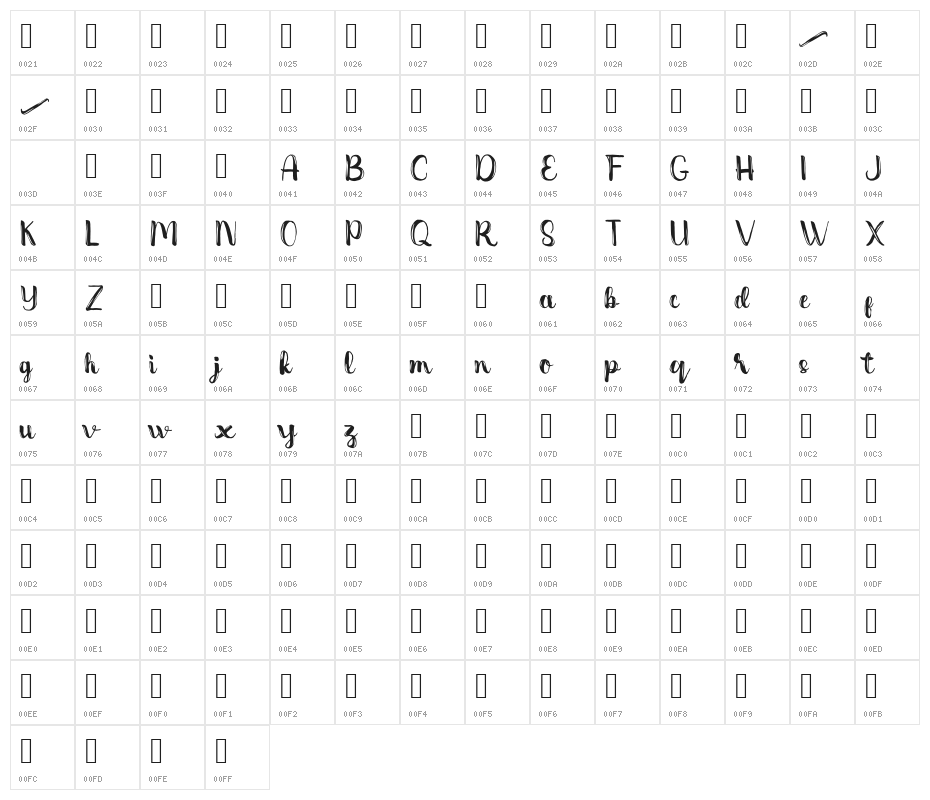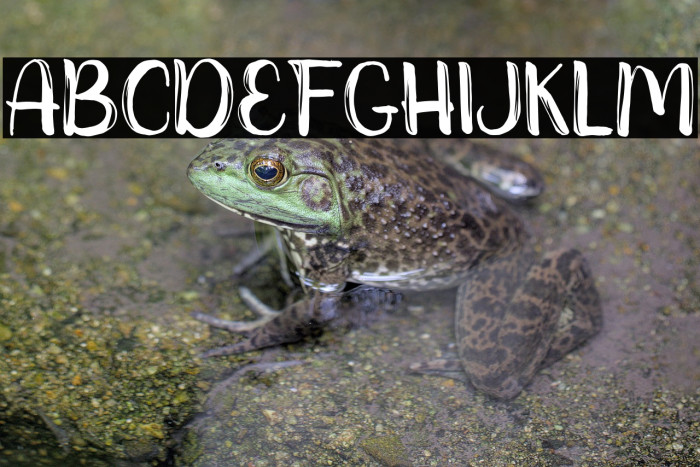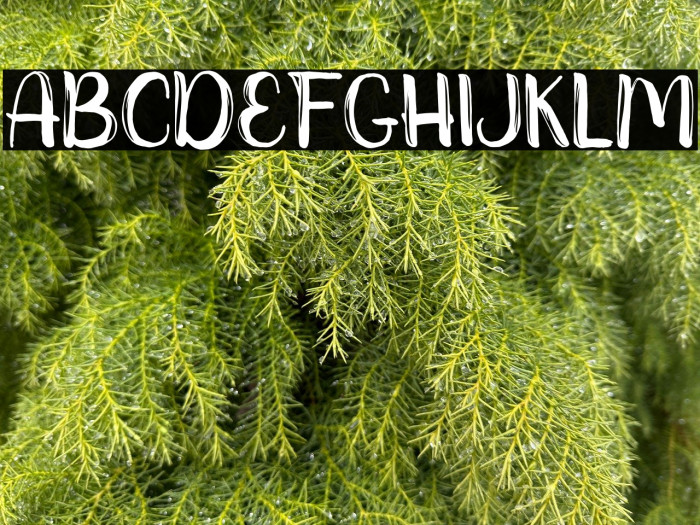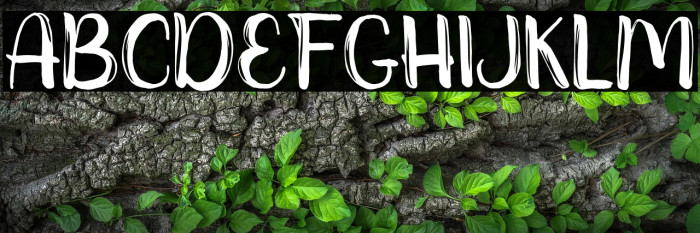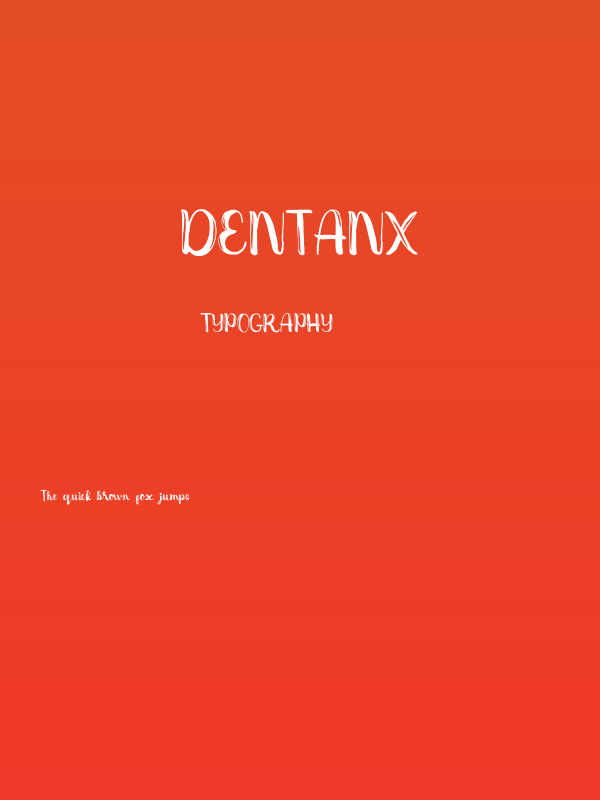
Dentanx Font
Dentanx Description
This font features a dynamic and expressive handwritten style, characterized by its fluid and flowing letterforms. The uppercase letters exhibit a bold and confident presence, with strokes that vary in thickness, adding a sense of movement and energy. The lowercase letters maintain a consistent rhythm, with playful loops and curves that enhance its casual and approachable feel. The font's overall appearance is artistic and lively, making it suitable for creative and informal applications. Its unique style is further emphasized by the irregularities in stroke width, which contribute to its handcrafted aesthetic.
| Proposed Projects | Ideal for greeting cards, invitations, branding projects, and social media graphics. |